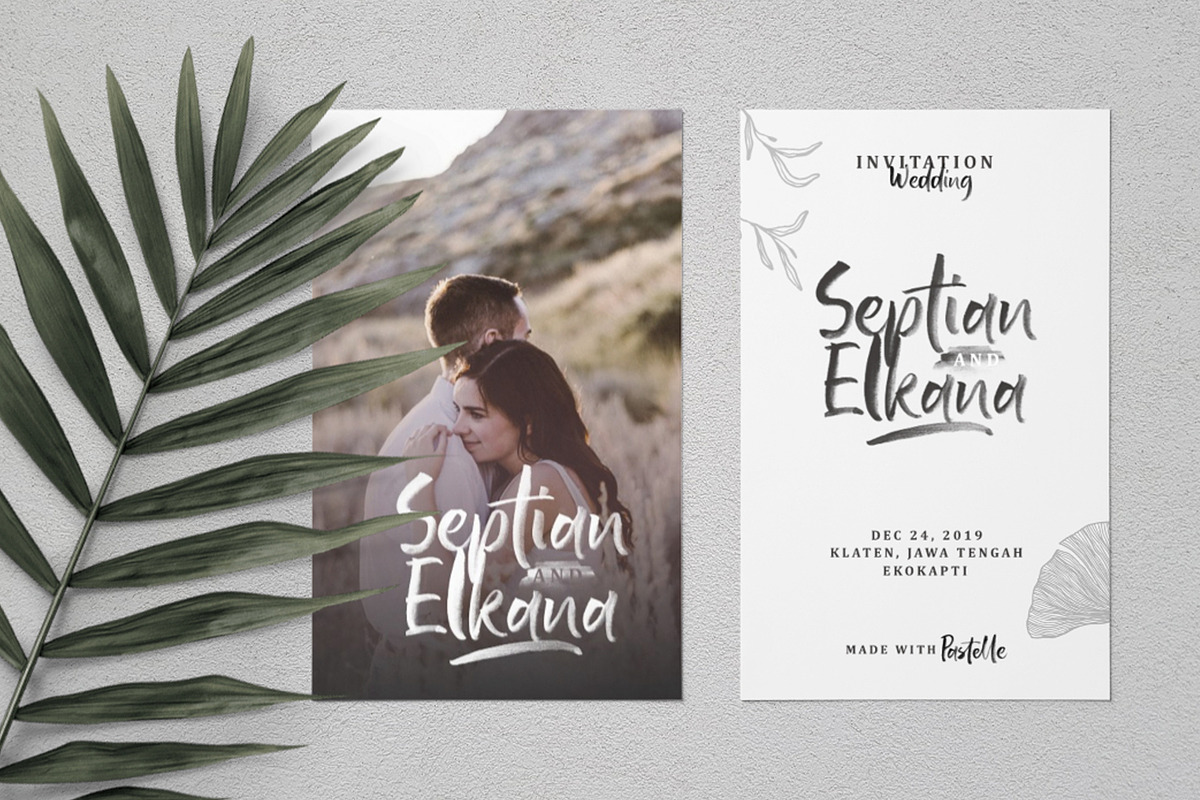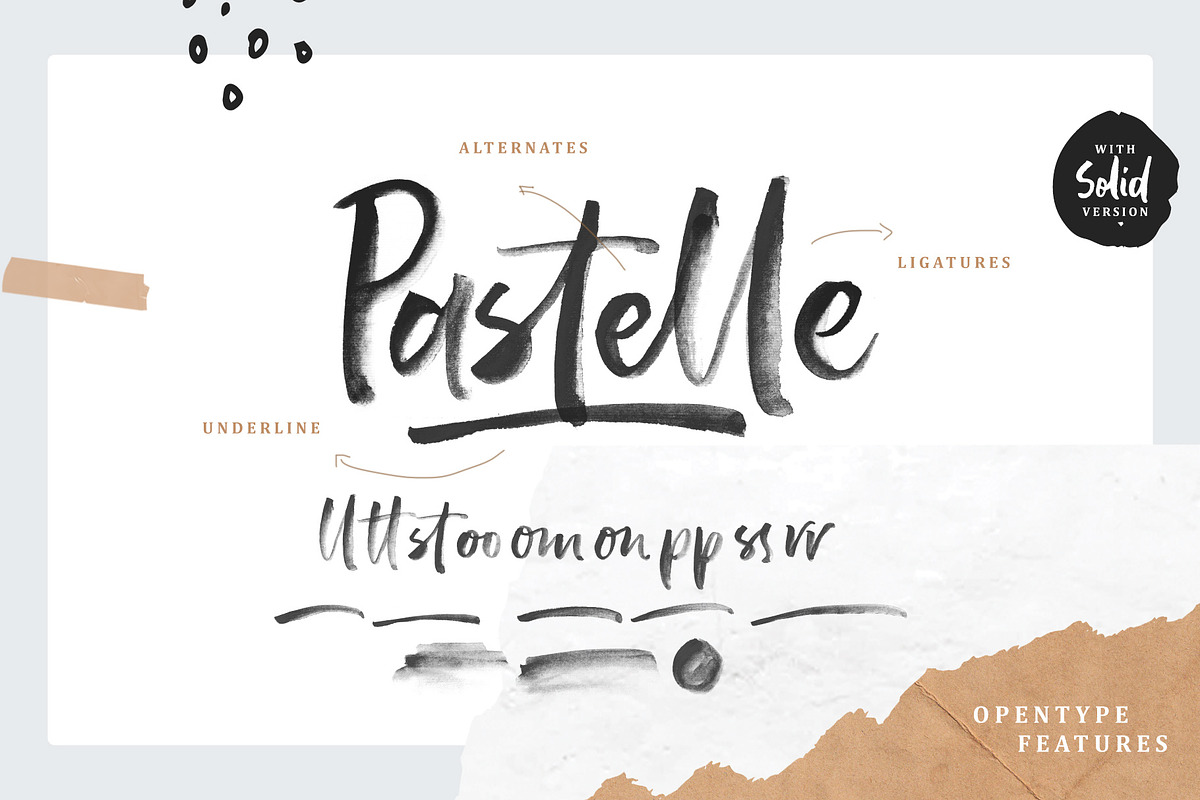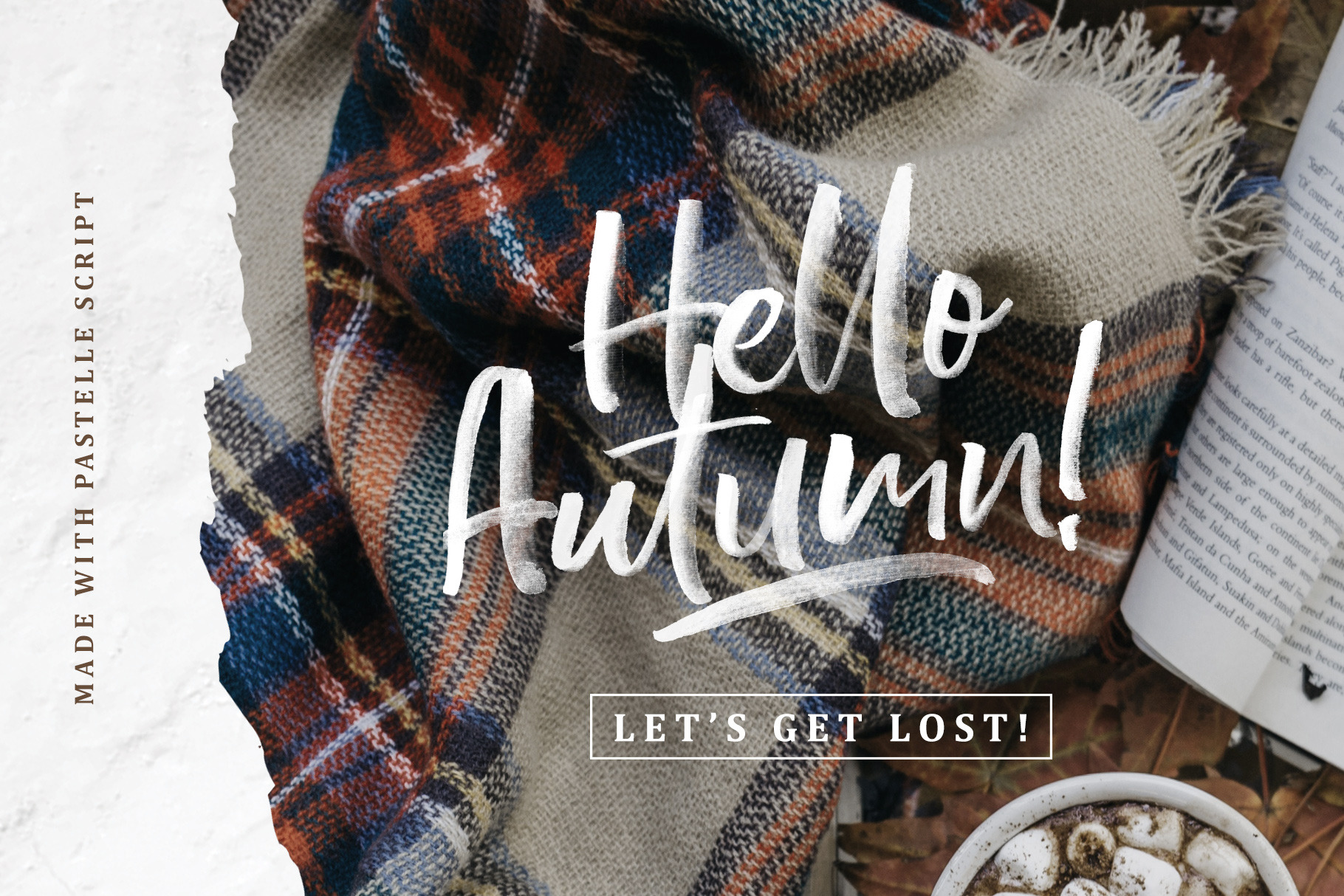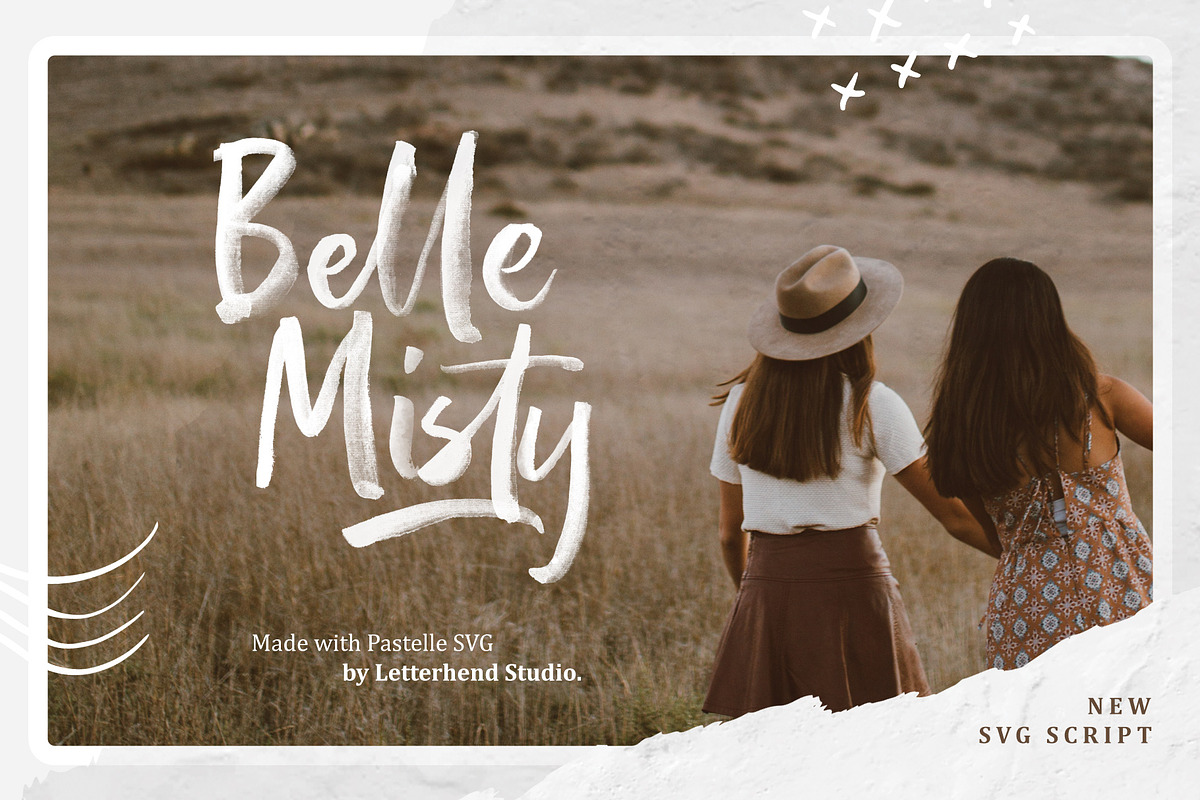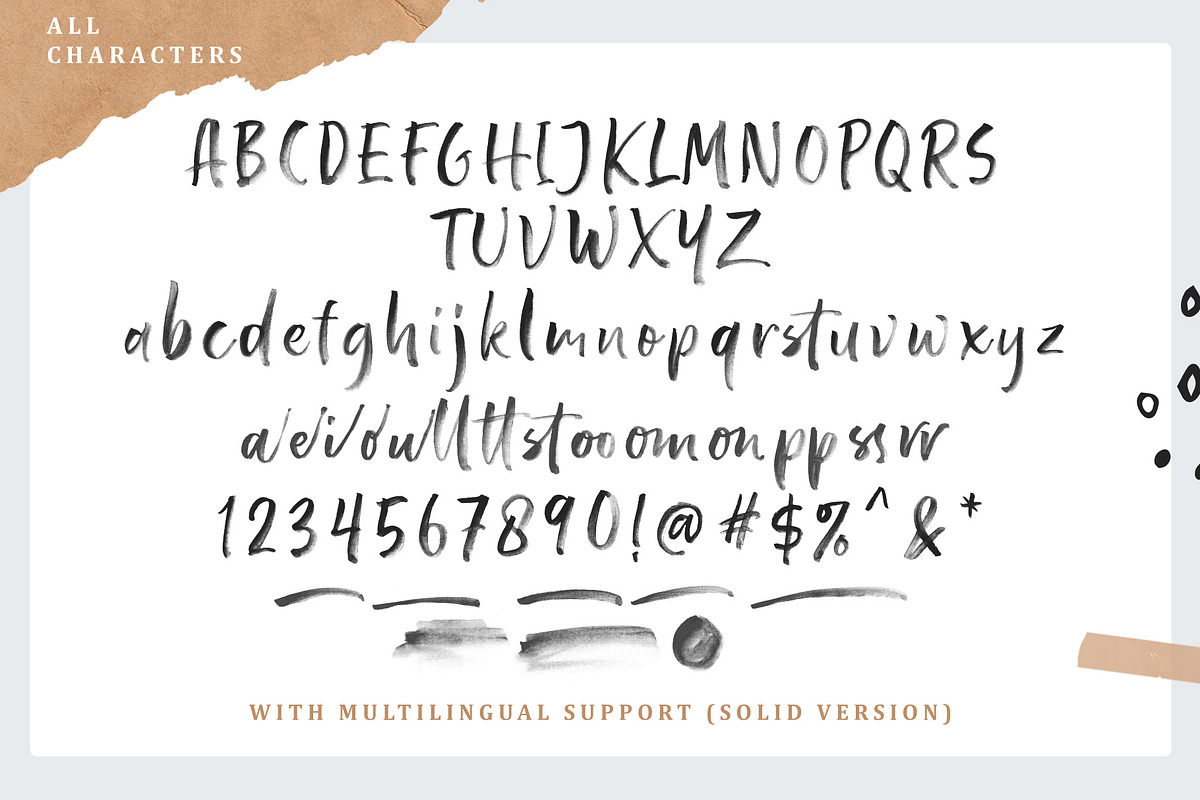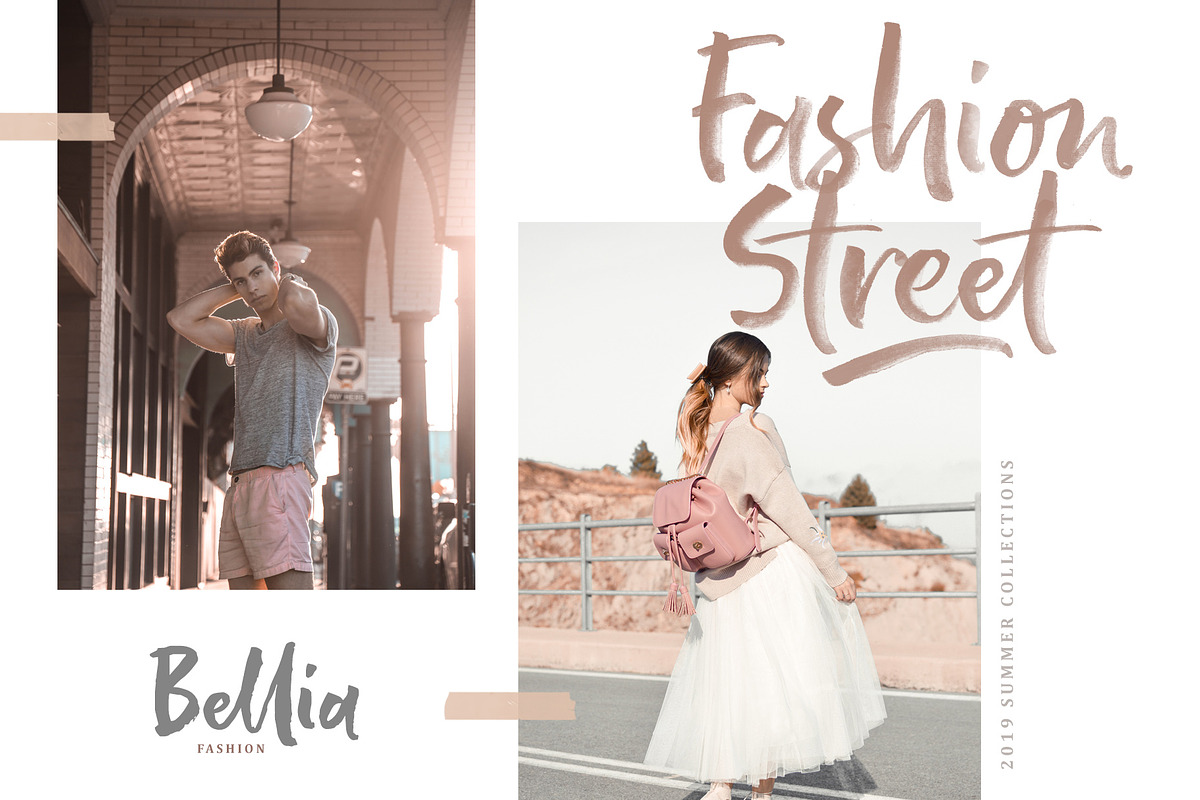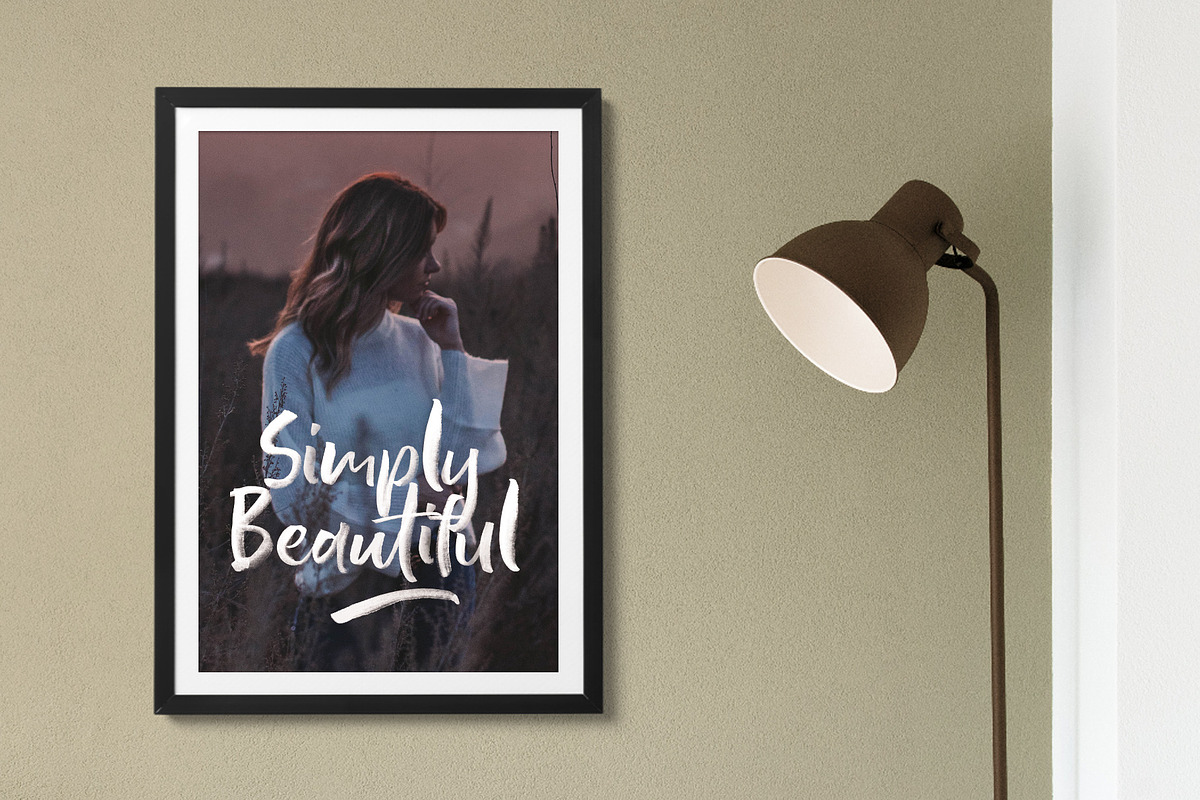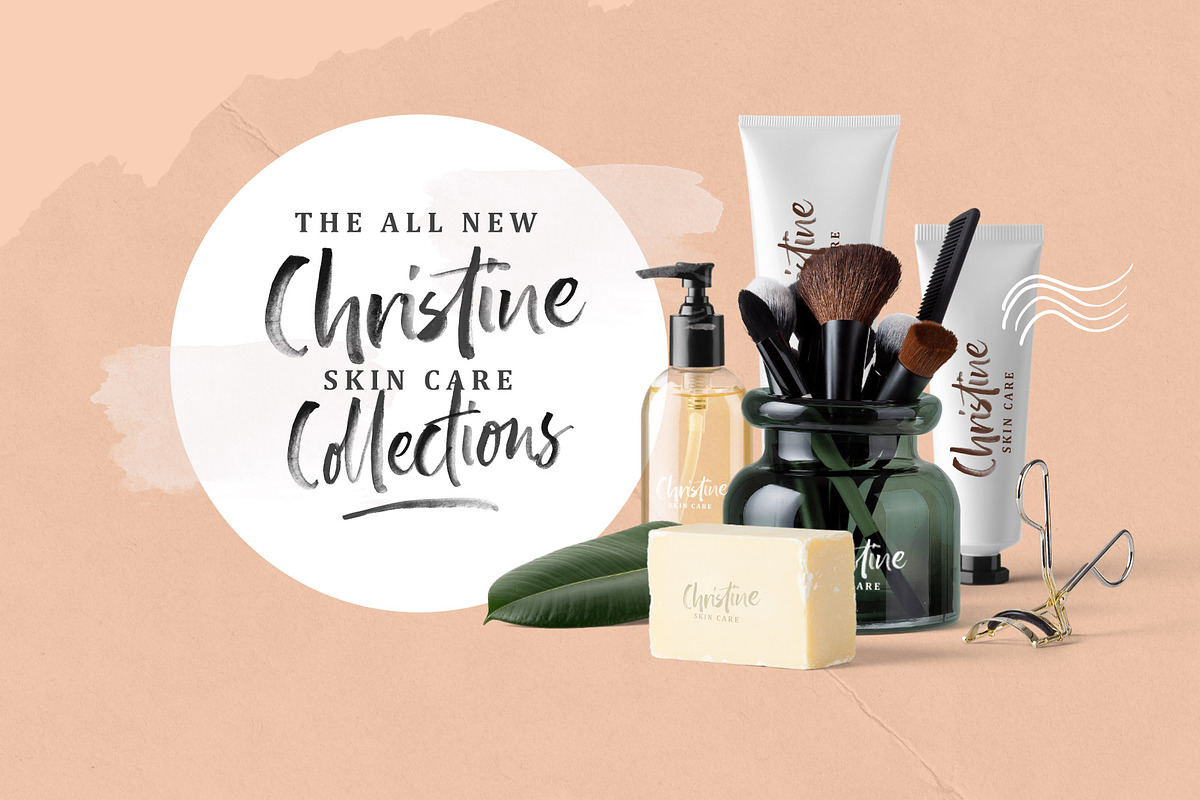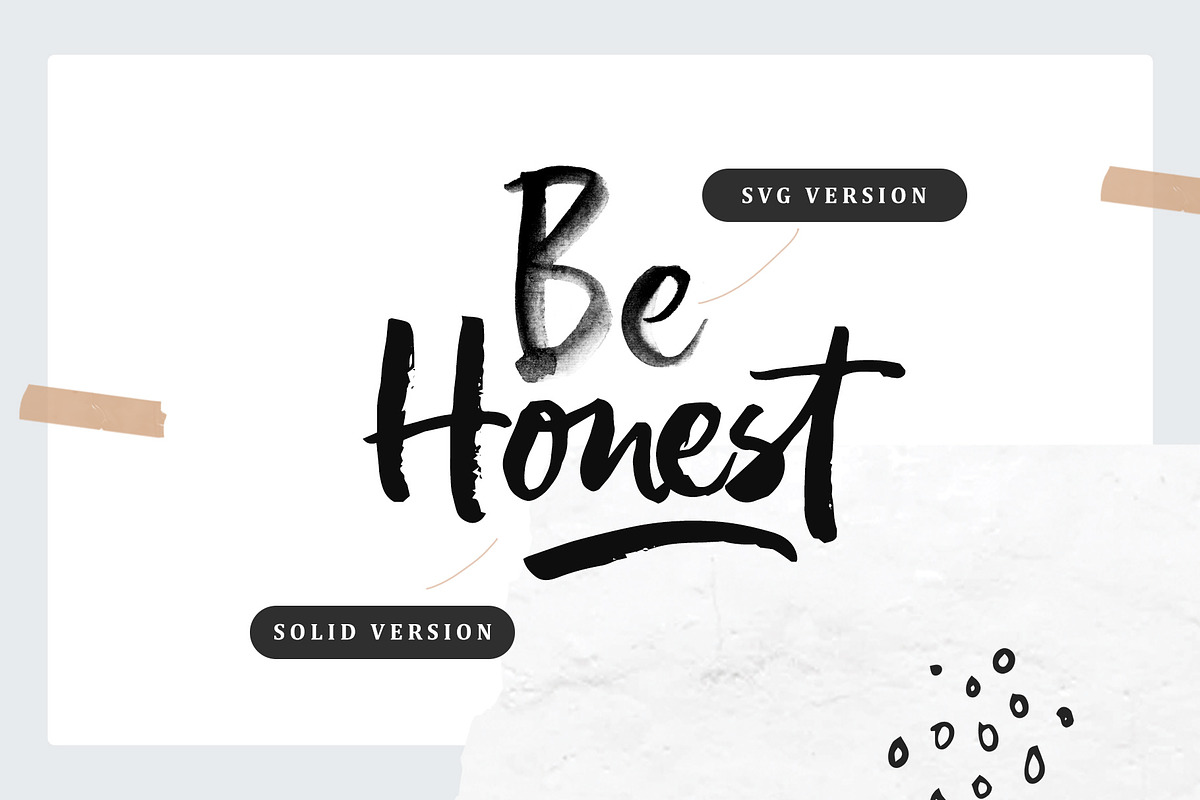
Pastelle SVG font
Introducing, Pastelle SVG font.
Pastelle is a A Display Typeface Family which is suitable for you who needs a typeface for headline, logotype, apparel, invitation, branding, packaging, advertising etc. The natural texture gives a unique touch. This typeface is comes in uppercase, lowercase, punctuations, symbols & numerals, stylistic set alternate, ligatures, etc also support multilingual and already PUA encoded.
Foreign Languages Support: ÀÁÂÃÄÅÇÈÉÊËÌÍÎÏÐÑÒÓÔÕÖØÙÚÛÜÝßàáâãäåæçèéêëìíîïðñòóôõöøùúûüýÿ